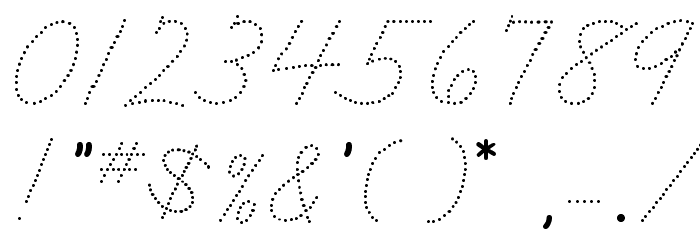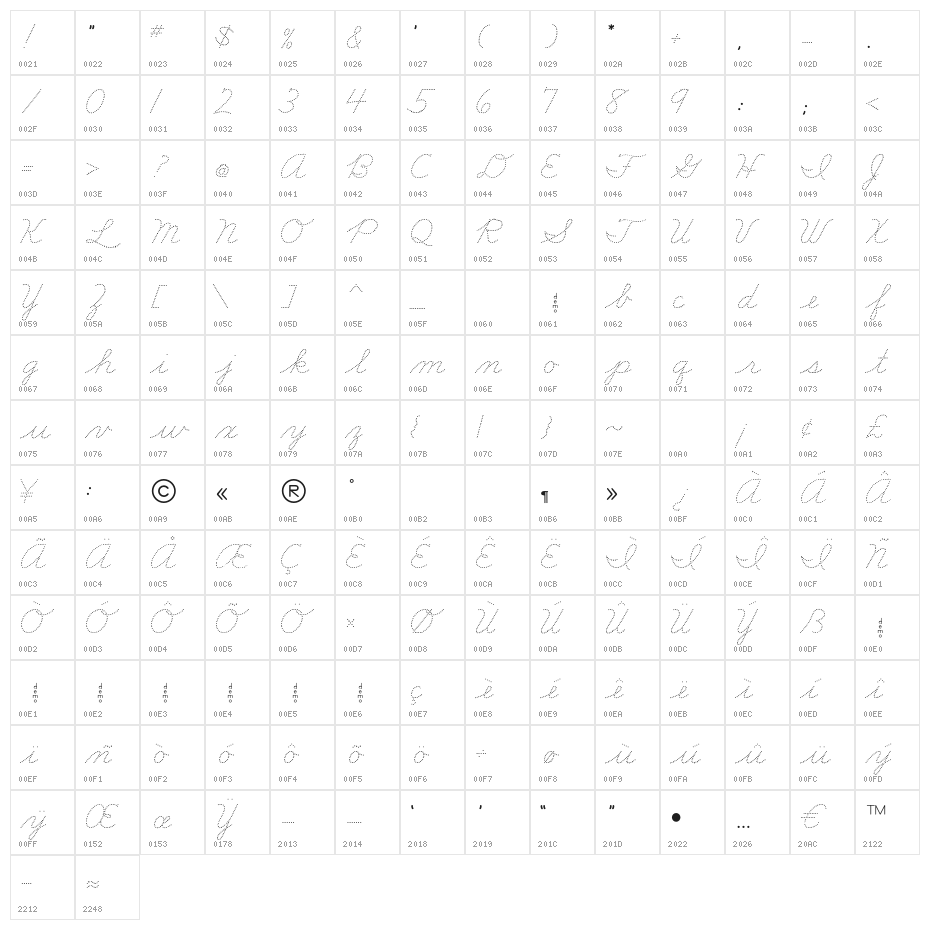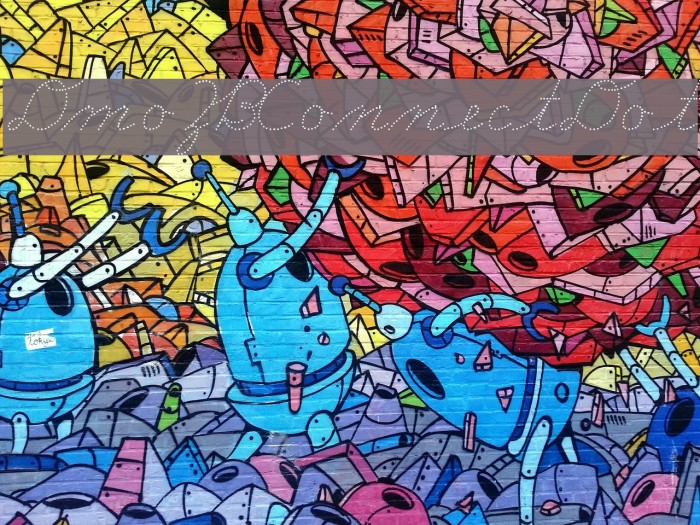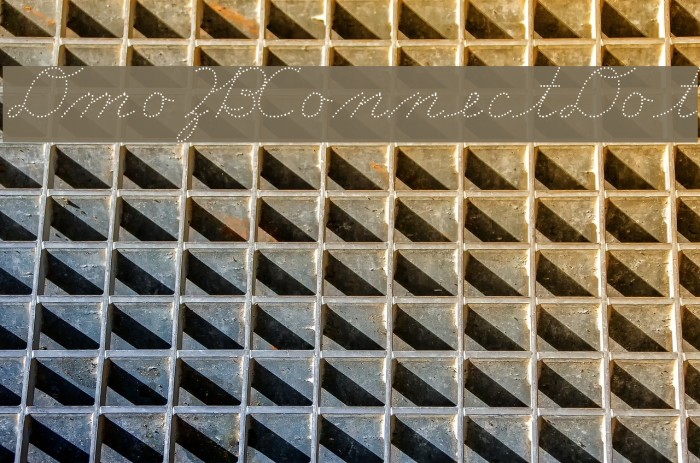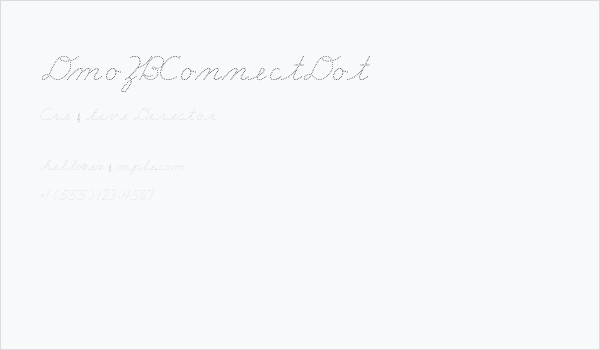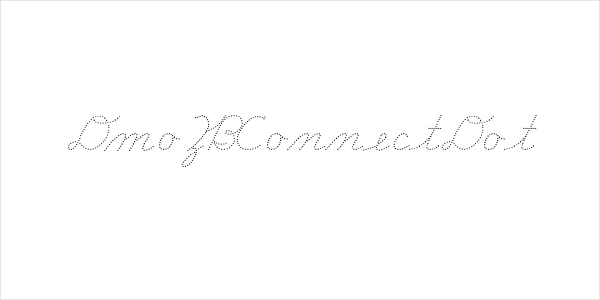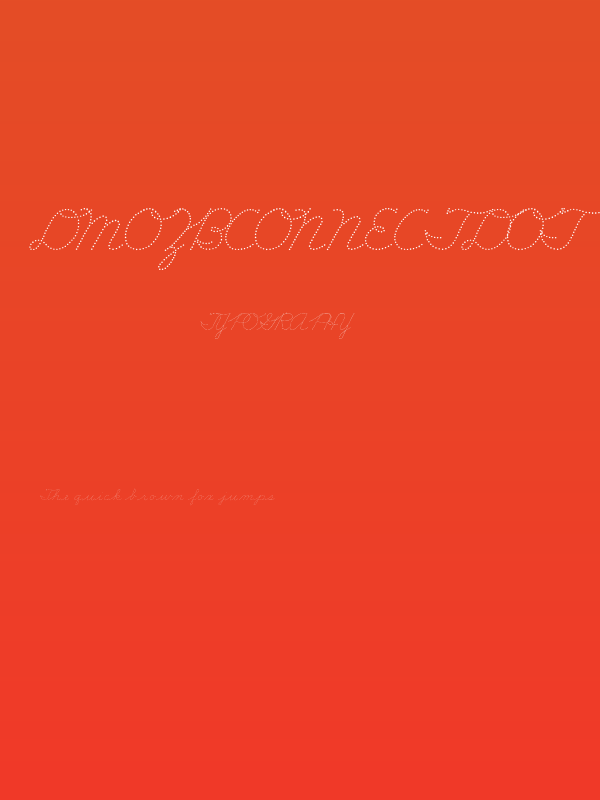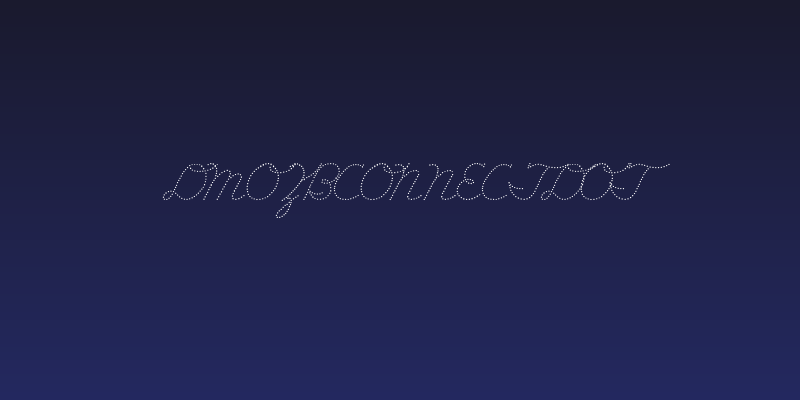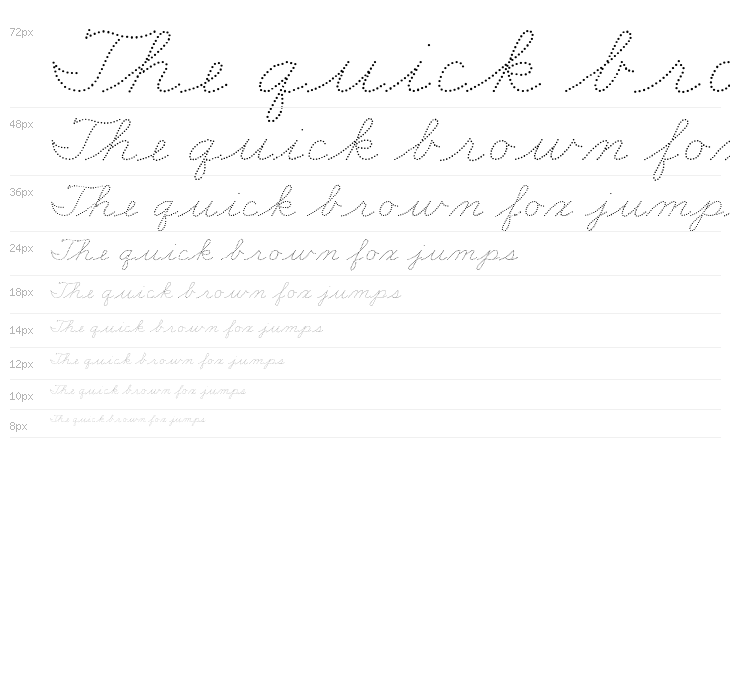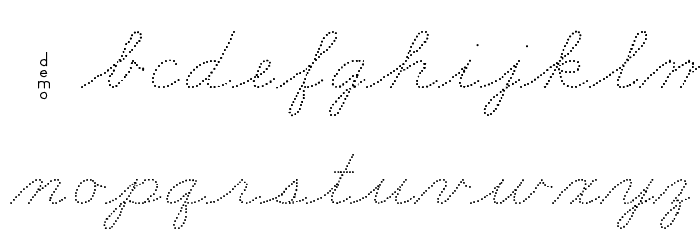
DmoZBConnectDot Font
DmoZBConnectDot Description
This font features a unique dotted script style, where each character is composed of evenly spaced dots forming cursive letters. The uppercase and lowercase letters flow seamlessly, maintaining a consistent and elegant appearance. The numbers and special characters follow the same dotted pattern, ensuring uniformity across all glyphs. This style evokes a sense of playfulness and creativity, making it suitable for projects that require a touch of whimsy and charm. The font's dotted design adds a tactile dimension, reminiscent of a connect-the-dots puzzle, which can engage viewers in a visually intriguing way.
| Proposed Projects | Ideal for children's books, educational materials, playful branding, and creative invitations. |